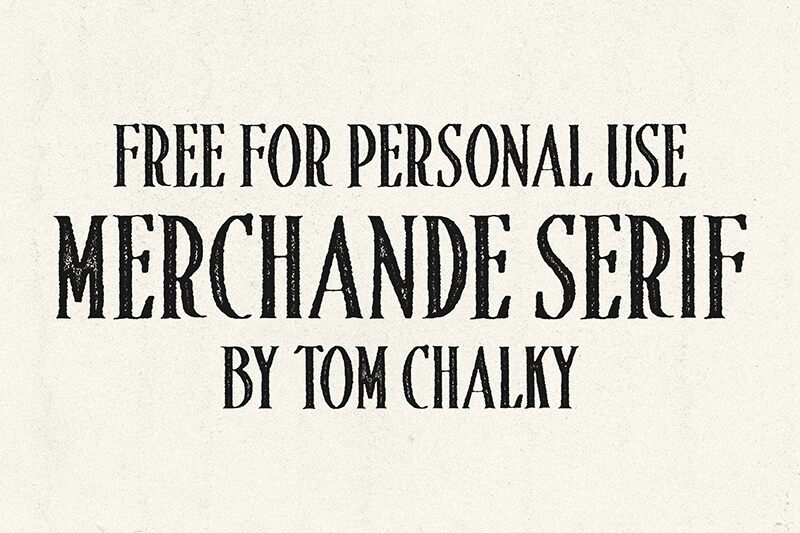
Merchande Print Serif Rough font by Tom Chalky is a display font with a rich eroded style and condensed appearance. This Victorian-inspired, ornate, and decorative font embodies vintage charm with its elegant, textured appearance. Its design seamlessly integrates modern finesse with nostalgia, drawing inspiration from mid-century typefaces to add an artisanal touch.
Elevate your brand's aesthetic using it for branding projects like logos, labels, packaging designs, or book covers. Infuse character into advertising materials such as posters and flyers or design attention-grabbing headlines for magazines. Allow your website header design or any digital artwork to resonate with Merchande’s genuine textured typographic experience.
Merchande Print Serif Rough